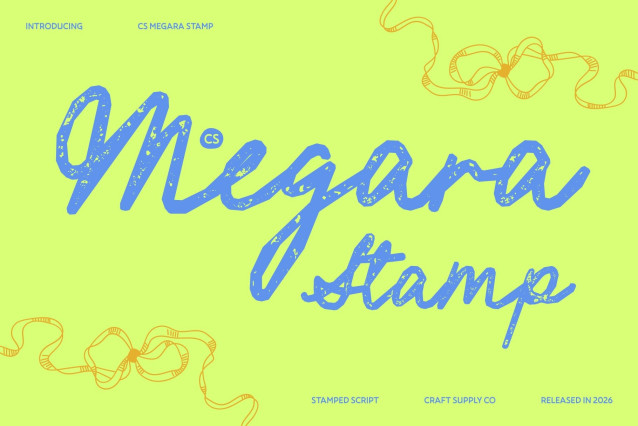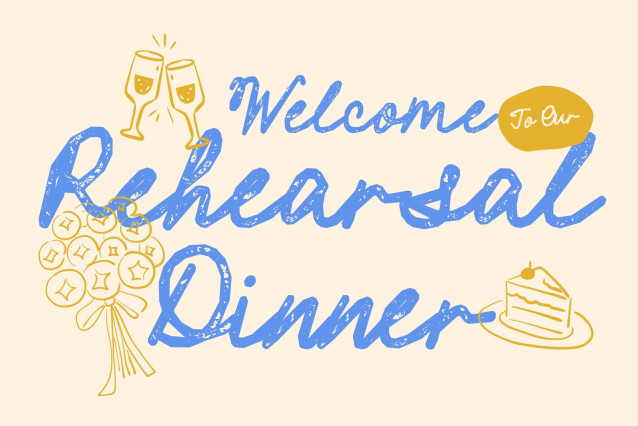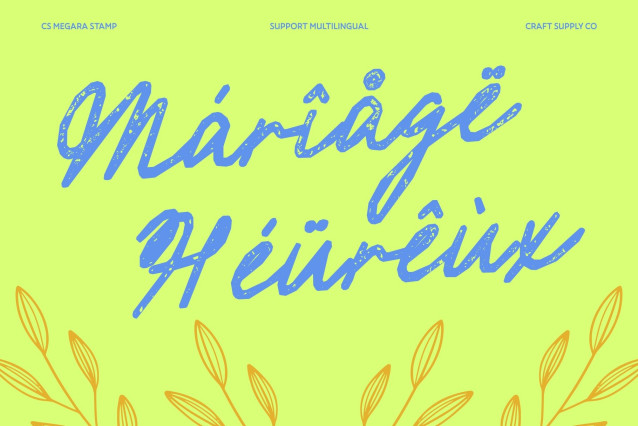
CS Megara Stamp Font
CS Megara Stamp – Beautiful Script with Modern Refinement
Elegant Script with a Graceful Flow
This is a refined branding script font that blends fluid elegance with contemporary clarity. Its smooth, flowing strokes create a sophisticated rhythm that feels both stylish and effortlessly modern, making it ideal for projects that call for a polished, high-end touch.
Monoline Style with Modern Readability
Carefully designed for balance and legibility, the monoline construction keeps every letter clear while preserving its delicate beauty. The result is a script that feels luxurious yet approachable perfect for designs that need both charm and clarity.